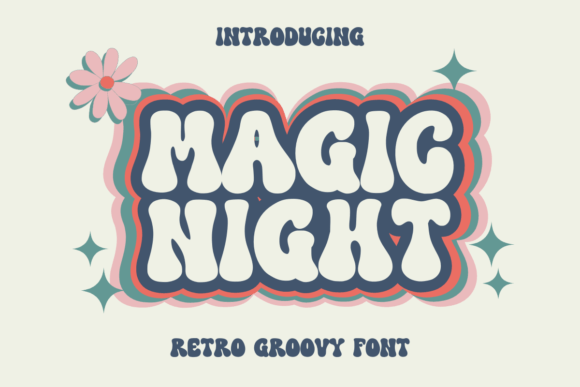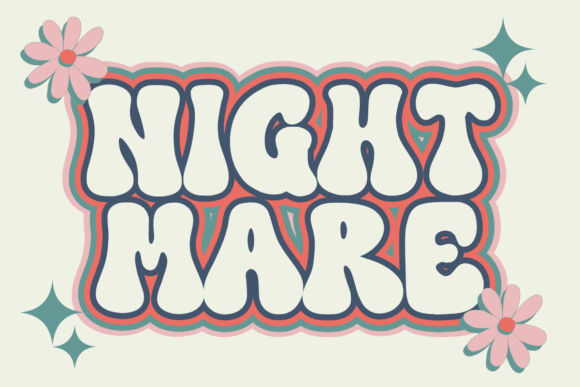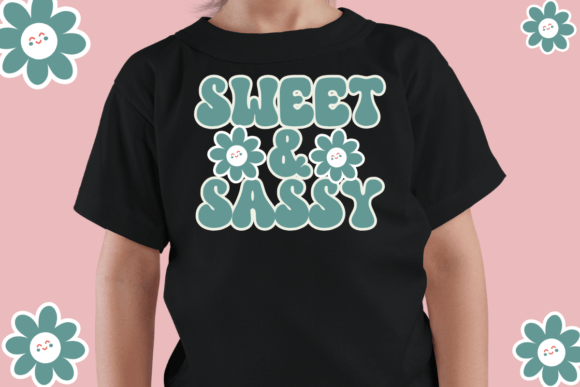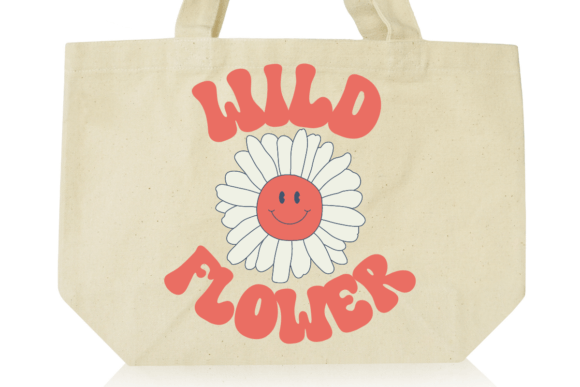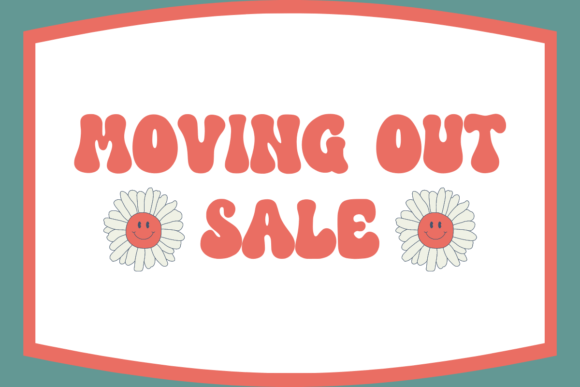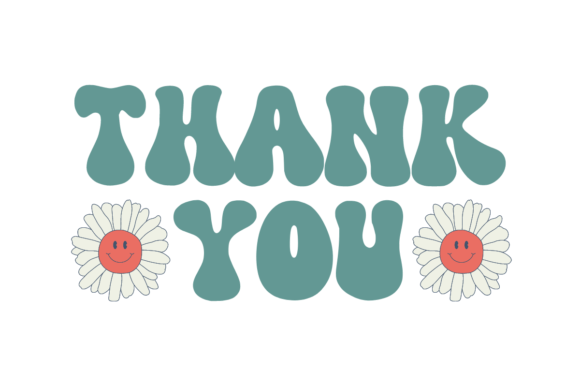
Magic Night Font
Magic Night is a fun and retro font, it’s perfect for designs that need a playful, cheery accent. Magic Night is suitable for book covers, posters, packaging, merchandise, logotypes, and many more!